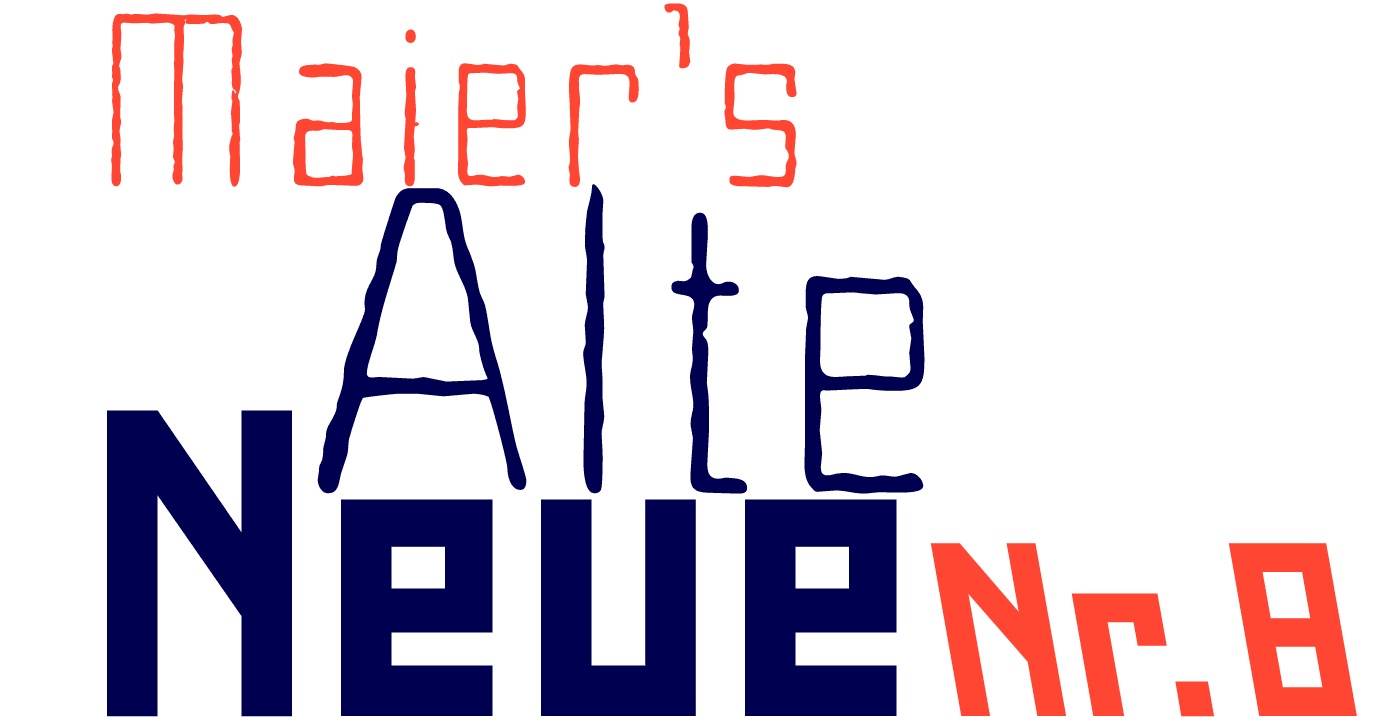
Maiers Nr 8 Pro Font
Maiers Nr 8 Pro Font is perfect for vintage poster designs, retro advertising campaigns, craft brewery branding, barbershop signage, classic automobile marketing, nostalgic packaging designs, heritage brand logos, industrial design projects, steampunk artwork, and artisanal product labeling. This distinctive typeface excels in applications where industrial heritage, craftsmanship, and timeless character are fundamental to the design narrative.
Maiers Nr 8 Pro Font is exciting because it masterfully combines industrial strength with refined elegance, creating a unique aesthetic that bridges historical craftsmanship and contemporary design needs. Its robust letterforms feature carefully balanced proportions, distinctive character details, and mechanical precision that evoke the golden age of industrial design. The font's versatile nature allows it to function beautifully in both display applications and extended text settings while maintaining exceptional readability.
The Maiers Nr 8 Pro Font family includes Regular, Bold, Light, Condensed, Extended, and Stencil variations, each maintaining the core design philosophy while offering different visual weights and applications. The Pro version features extensive language support, advanced OpenType features, stylistic alternates, and specialized ligatures. Additional elements include ornamental borders, decorative symbols, and industrial-inspired glyphs that complement the main character set.
Professional designers appreciate Maiers Nr 8 Pro Font for its ability to convey authority, reliability, and craftsmanship heritage. The font's commanding presence works exceptionally well in branding applications where trustworthiness and quality are primary concerns. Its distinctive personality makes it ideal for companies seeking to communicate tradition, durability, and professional excellence.
The powerful character of Maiers Nr 8 Pro Font transforms brand communications with its industrial sophistication and mechanical precision. Its authentic vintage appeal resonates with audiences who value quality craftsmanship and historical continuity while meeting contemporary design standards and technical requirements.
Harness the industrial strength of Maiers Nr 8 Pro Font and discover why leading brands choose this exceptional typeface for projects requiring authenticity, durability, and timeless professional appeal.